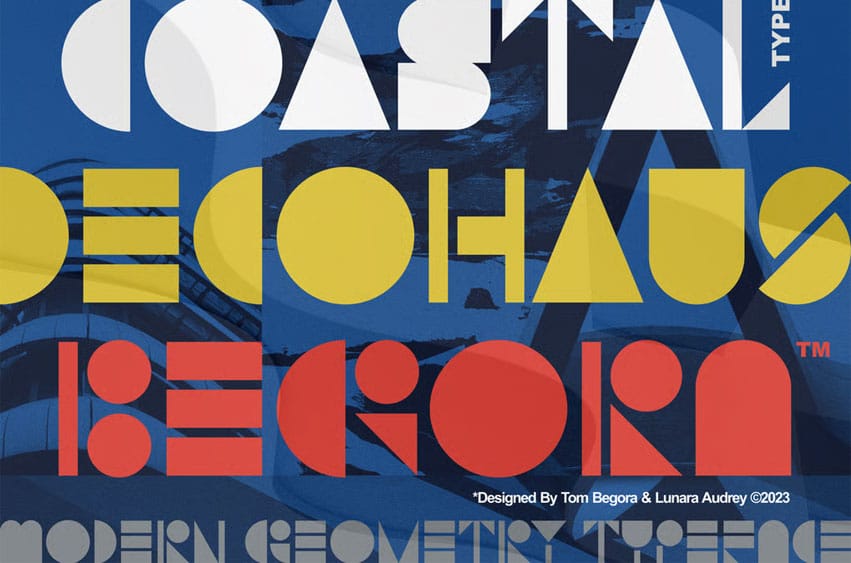
Decohaus Begora Font The Epitome of Modern Geometric Typeface. Embrace the essence of boldness and simplicity with DecoHaus Begora, a stunning typeface crafted from fundamental shapes such as squares, circles, and triangles.
Inspired by the purity of brutalist architecture and the sleek lines of contemporary fashion, DecoHaus Begora captures the essence of modernity in every character.
With its clean lines and precise angles, DecoHaus Begora offers a versatile and dynamic solution for designers and creatives seeking a typeface that effortlessly marries elegance with an avant-garde edge. Whether you’re crafting a cutting-edge logo, developing sleek branding materials, or designing captivating visual content, DecoHaus Begora is the ideal companion for expressing your innovative vision.
- Unicase
- Punctuation & Number